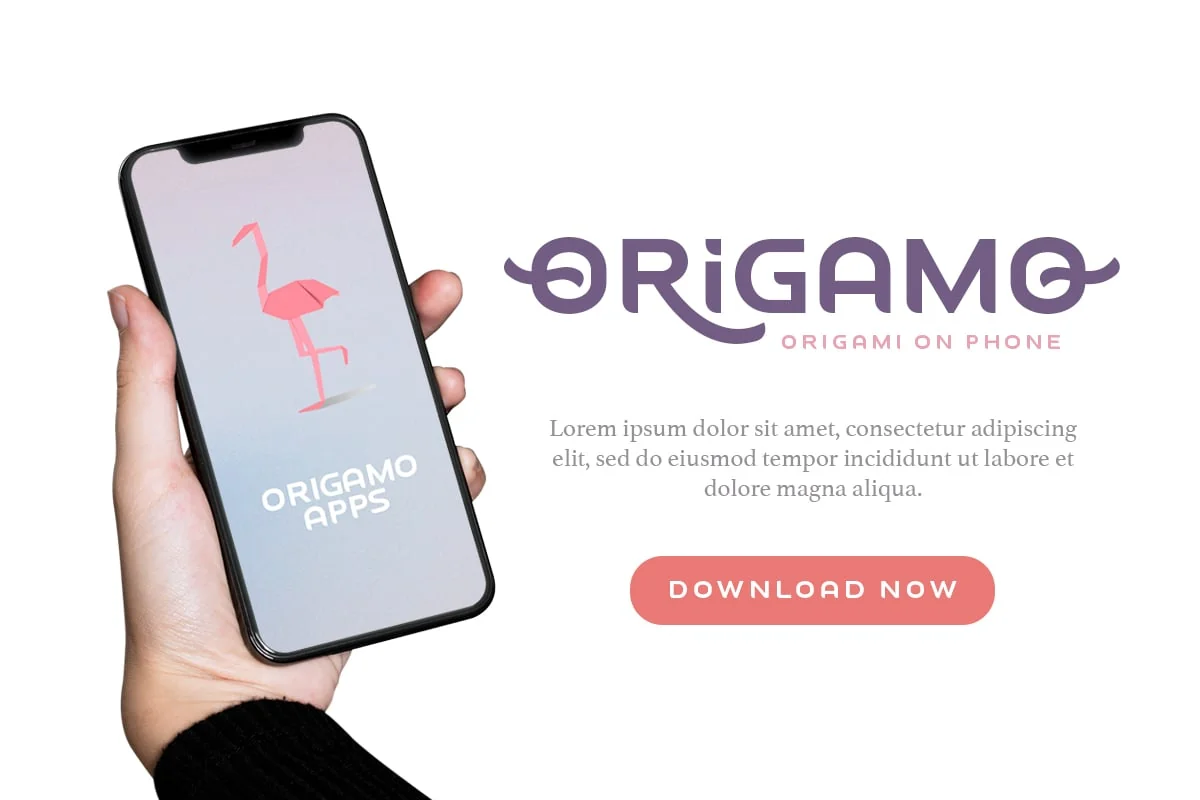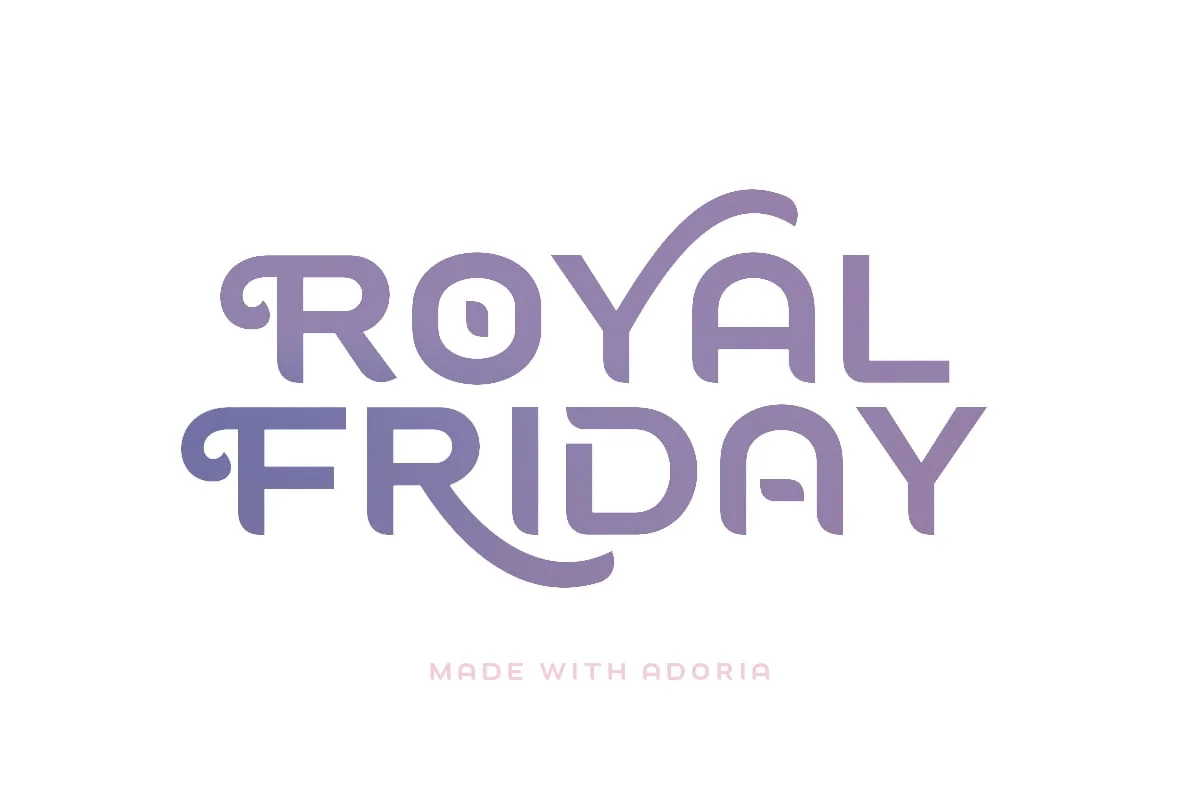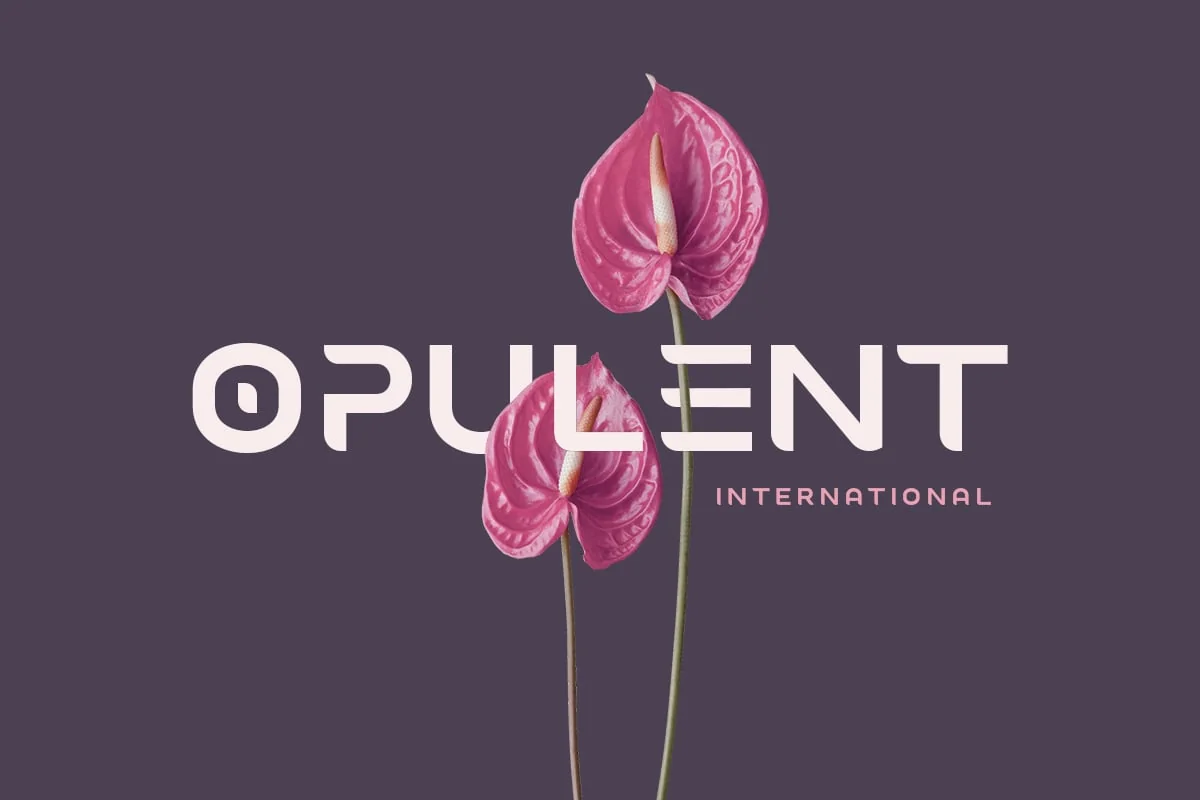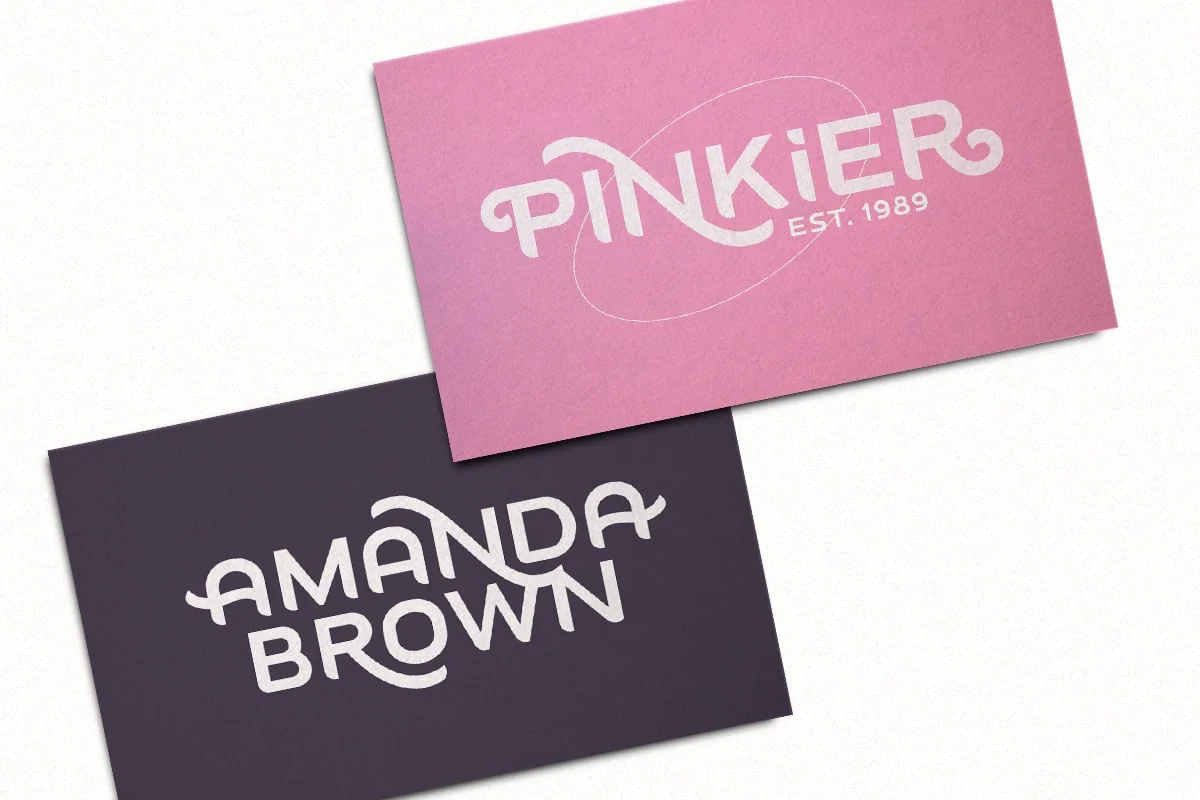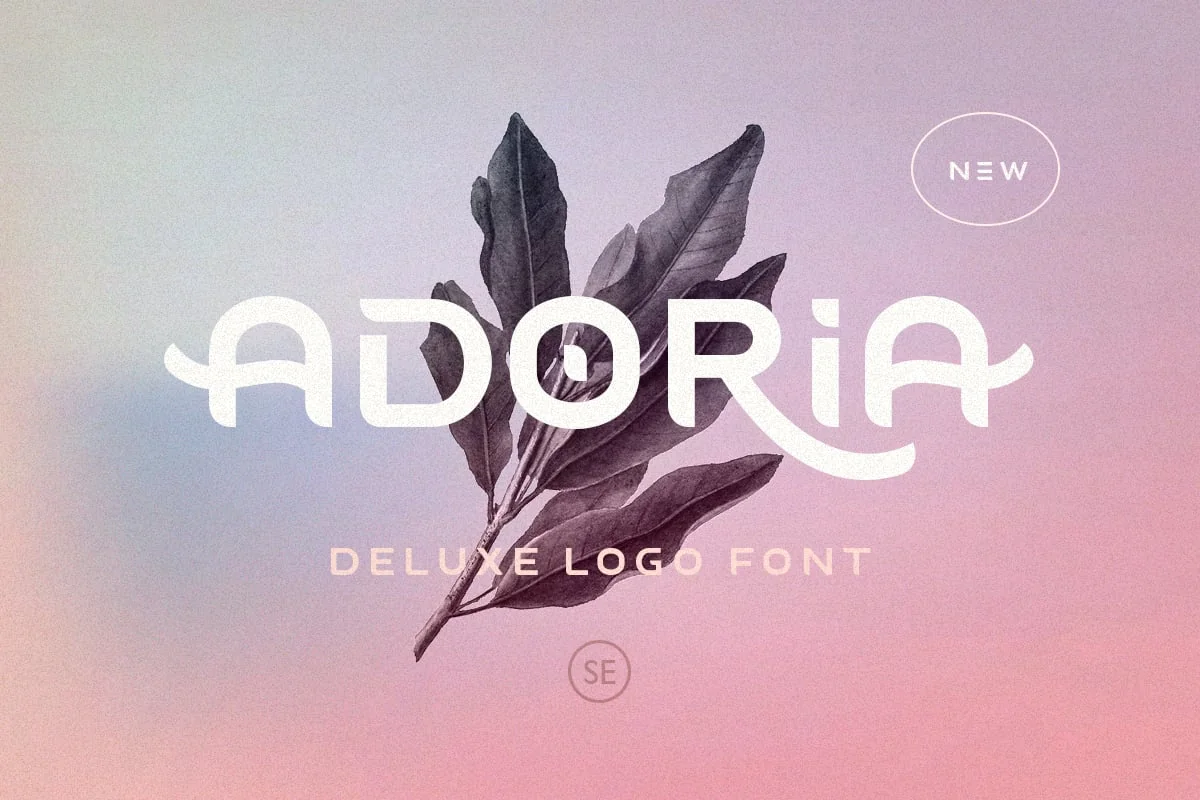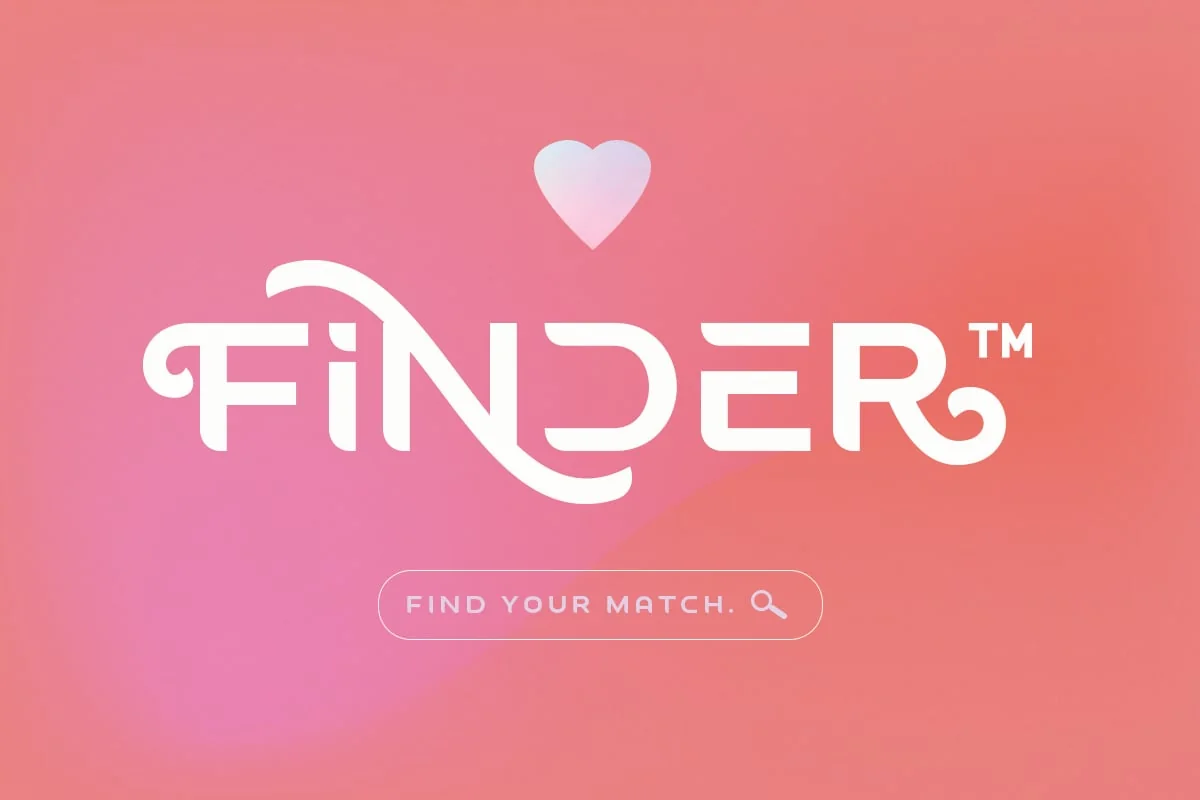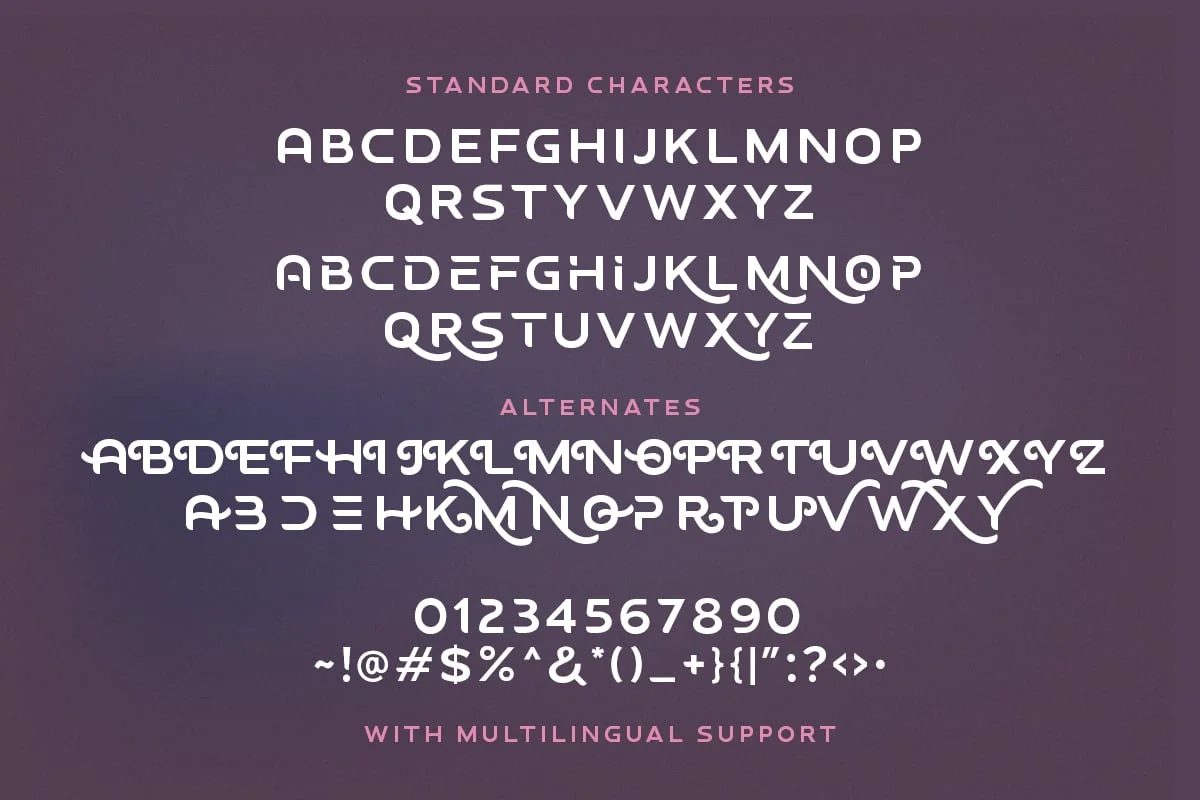
Adoria – Deluxe Logo Font
Adoria is a minimalist logo font with unique edge that will make your logo and design looks more simple and modern. With the unique characteristic lowercase, this font can make your logo even more stunning. You can use this font for any purpose, especially to make logotype. You can mix and match the uppercase and lowercase to make your logo more advanced. Adoria also comes with alternates that’s why it’s called deluxe logo font. This font also comes with number, symbol, and multilingual support!